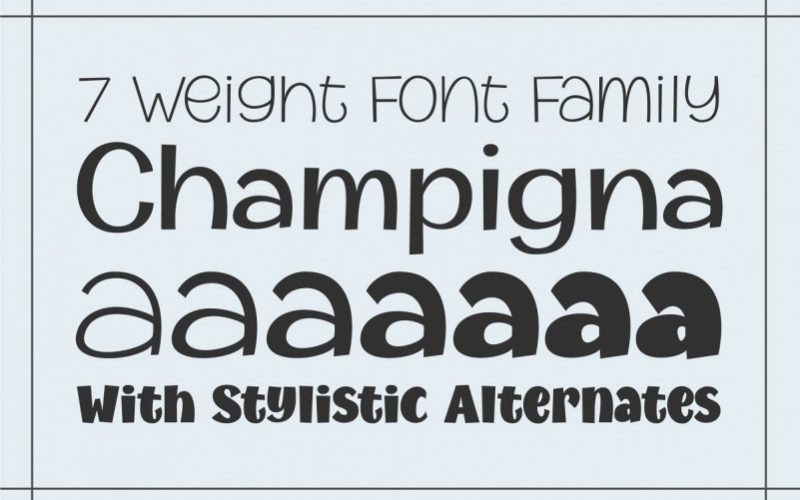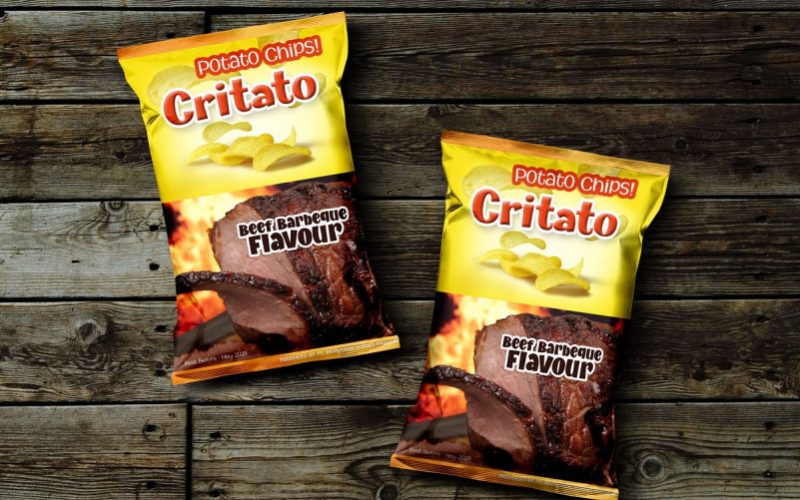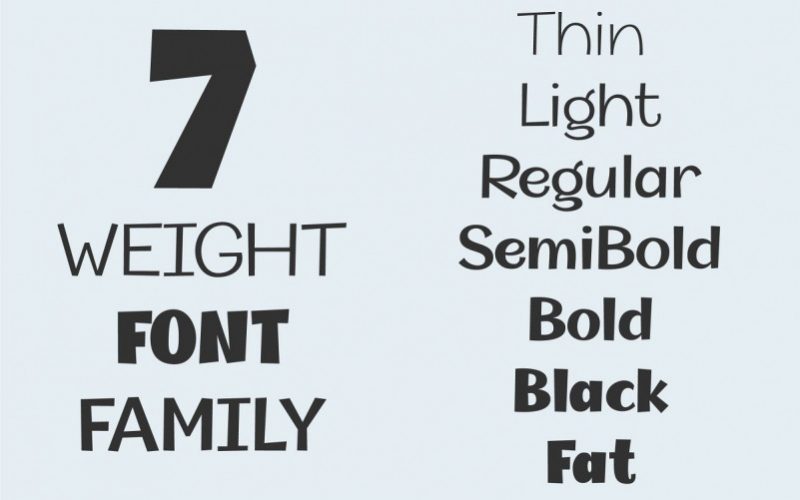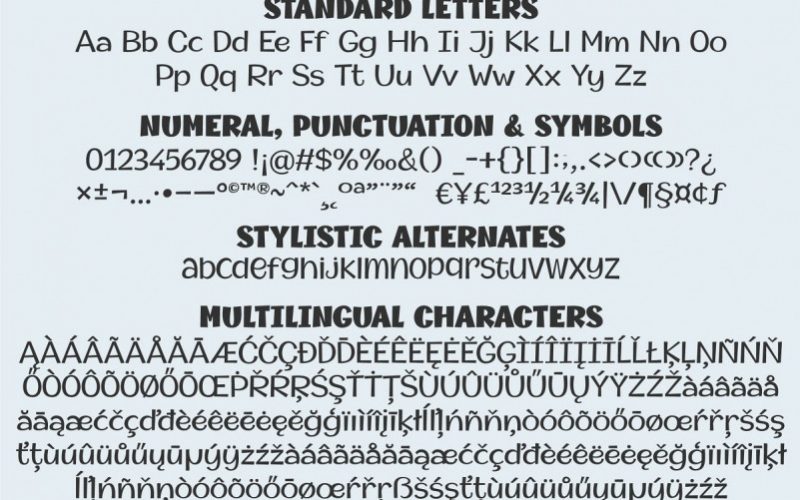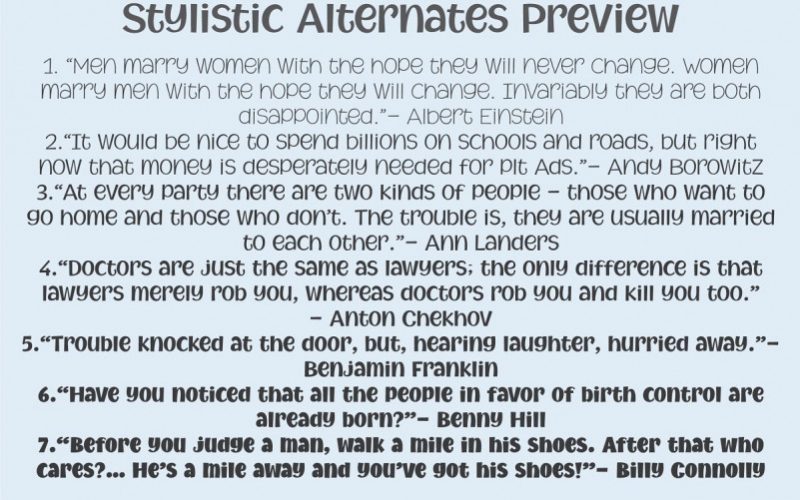
Champigna Comic Family
Introducing a new cool comic font family!, named as Champigna a ficus species. This font was carefully crafted with clean node. Available in seven weight variation, so you can enjoy design a page just with a font family.